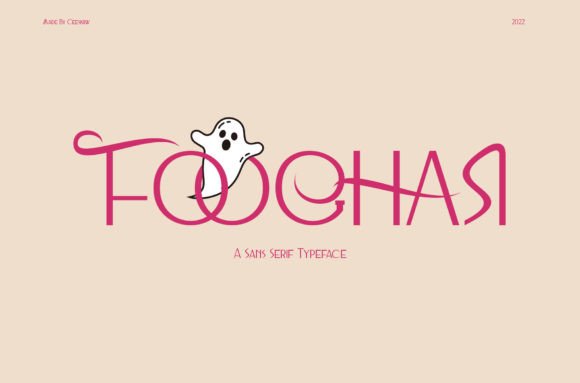
Introducing Fooghasi Font: Elevate Your Designs with Elegance and Style
Are you a designer or crafter looking for a font that can add a touch of festivity and sophistication to your creations? Look no further than Fooghasi Font! This stylish and elegant sans serif font is designed to make your designs stand out with its uniquely shaped characters. In this article, we’ll dive into the world of Fooghasi Font, exploring its features, benefits, and uses, as well as provide tips on how to make the most of this beautiful font.
What is Fooghasi Font?
Fooghasi Font is a modern sans serif font that boasts a distinctive and elegant style. Its clean lines, subtle curves, and uniquely shaped characters make it perfect for a wide range of design applications, from digital projects to print materials. Whether you’re creating invitations, posters, social media graphics, or craft projects, Fooghasi Font is sure to add a touch of sophistication and festivity to your designs.
Key Features of Fooghasi Font
- Stylish and Elegant Design: Fooghasi Font features a sleek and modern sans serif design that exudes elegance and sophistication.
- Uniquely Shaped Characters: The font’s uniquely shaped characters add a touch of whimsy and festivity to any design, making it perfect for special occasions and celebrations.
- Versatile and Adaptable: Fooghasi Font can be used for a wide range of design applications, from digital projects to print materials, and can be easily paired with other fonts to create stunning combinations.
- Easy to Read: Despite its elegant design, Fooghasi Font remains highly legible, making it perfect for body text and captions.
Benefits of Using Fooghasi Font
So, why choose Fooghasi Font for your designs? Here are just a few benefits of using this beautiful font:
- Adds a Touch of Elegance: Fooghasi Font instantly elevates your designs with its sophisticated and elegant style.
- Perfect for Festive Occasions: The font’s uniquely shaped characters make it perfect for special occasions and celebrations, such as weddings, birthdays, and holidays.
- Increases Readability: Fooghasi Font’s clean design and clear letterforms ensure that your text remains easy to read, even at smaller sizes.
- Versatile and Flexible: Fooghasi Font can be used for a wide range of design applications, from digital projects to print materials.
- Pair with Other Fonts: Experiment with pairing Fooghasi Font with other fonts to create stunning combinations and add visual interest to your designs.
- Use for Headings and Titles: Fooghasi Font is perfect for headings and titles, where its elegant design and uniquely shaped characters can really shine.
| Font Name | Fooghasi Font |
| Author | Ceeskiiw |
In conclusion, Fooghasi Font is a stylish and elegant sans serif font that is perfect for designers and crafters looking to add a touch of festivity and sophistication to their creations. With its uniquely shaped characters, versatile design, and easy readability, Fooghasi Font is sure to become a go-to font in your design arsenal. Whether you’re creating digital projects or print materials, Fooghasi Font is the perfect choice for anyone looking to elevate their designs with elegance and style.